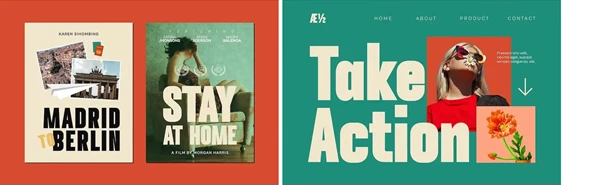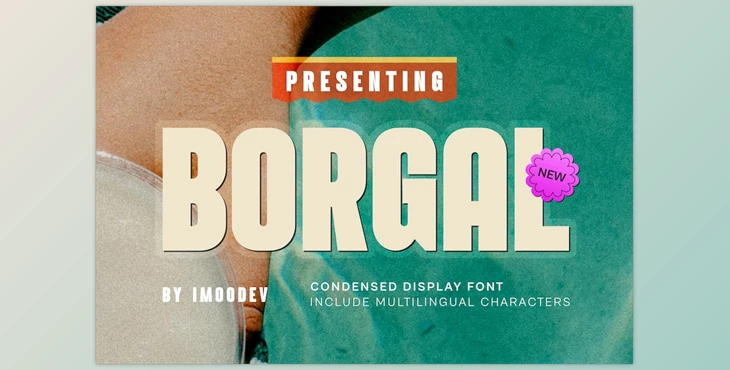
Borgal – Modern Minimal Font: Borgal is a contemporary minimalist font with sleek curves and a visual style that conveys elegance and class in each letter and makes your work appear gorgeous and appealing. It is a versatile font that operates in both lowercase and uppercase sizes. It is suitable for various designs, including display Font for logos, headings, Invitations and branding, magazines, photography, cards, product packaging, mockups of products, posters, mugs, labels and editorials, art deco, and any other commercial purposes.
What is Borgal – Modern Minimal Font?
Borgal is a modern and adaptable font, possessing distinctive features that render it well-suited for diverse design applications.
With its contemporary style, Borgal adds a touch of sophistication to a range of design projects spanning various industries.